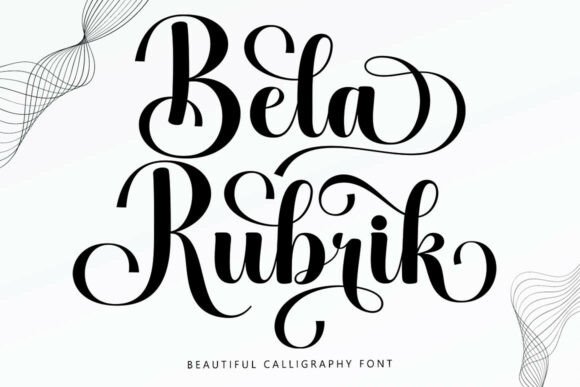
Bela Rubrik Font: Elegant Calligraphy Font for Wedding & Logo Design
About the Bela Rubrik Font
From logos to headlines, the Bela Rubrik Font is the perfect choice for making a lasting impression. Bela Rubrik is a lovely and timeless handwritten font. It is the best choice for creating eye catching logos, branding and quotes. Every letter has a unique and beautiful touch, which will make your design come alive!